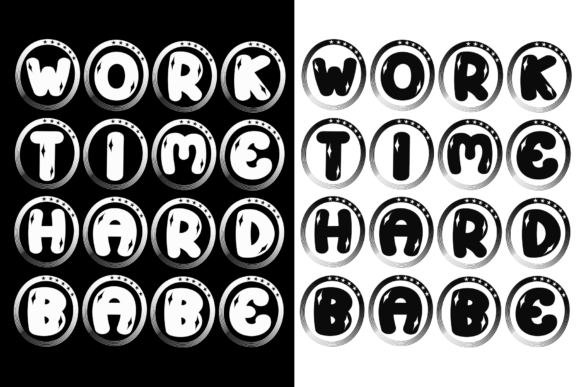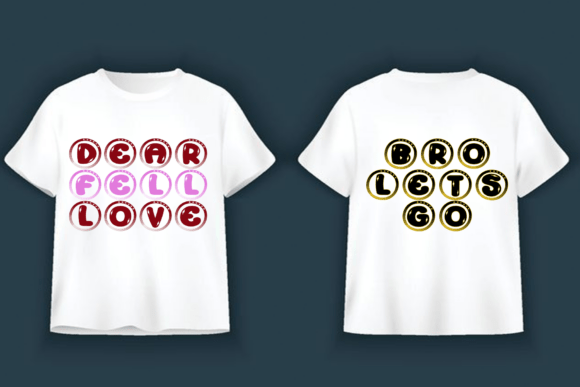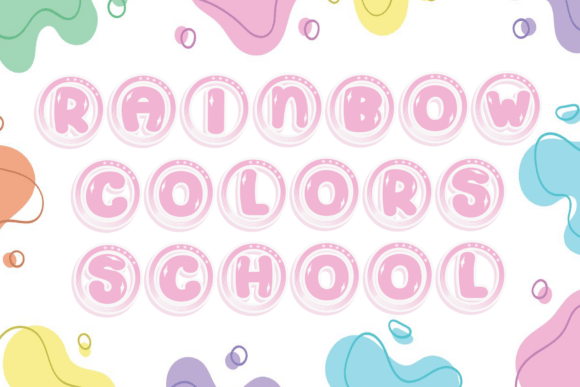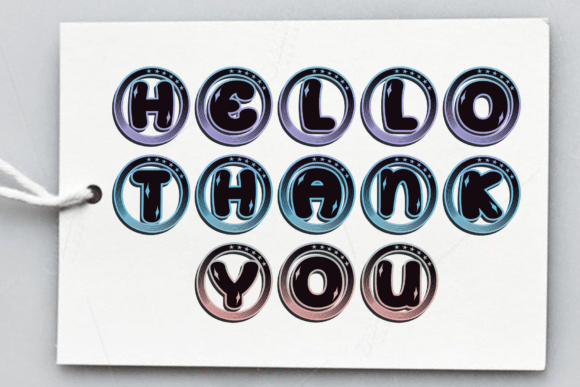
Unleashing Imagination with the Kids Color Font
Do you remember the excitement of creating a colorful masterpiece as a child, with crayons and markers sprawled across your drawing table? The joy of bringing your imagination to life is a feeling we all cherish, and for designers working with kids, it’s a vital part of their job.
That’s where the Kids Color Font comes in – a vibrant display font designed to bring fun and excitement to children’s projects. With its chunky, hand-drawn charm and playful spirit, this font is the perfect way to captivate young audiences and add joyful flair to any design. Whether you’re creating games, party invites, or learning materials, the Kids Color Font is a valuable asset in your design toolkit.
Kids Color Font Key Features
- Font Family: The Kids Color Font includes a unique set of colorful fonts designed specifically for children, with multiple styles and weights.
- Resolution: Designed to be resolution-independent, the Kids Color Font looks great at various resolutions, including low-resolution devices and high-resolution displays.
- Unique Characteristics: Each font character includes a set of colorful variations, allowing users to easily switch between different colors and create visually engaging content.
- Color Palette: The font includes a wide range of bright and vibrant colors, making it perfect for creating fun and engaging content for children.
Designer Review: Kids Color Font
Overall, I think Kids Color Font has some great qualities that make it a fun and playful choice for certain projects. ✨ The font’s vibrant colors and whimsical feel make it perfect for kids’ content, such as children’s books, educational materials, or even websites targeting young audiences.
- ✨ Easy to read: Despite the colorful design, the font is still relatively easy to read, especially for short texts or headlines.
- ✨ Versatile: The font comes in a range of colors, which makes it easy to match with other design elements and create a cohesive look.
- ✨ Fun: Let’s be honest, Kids Color Font is just plain fun to use! It adds a touch of playfulness to any project.
However, I do have a few concerns ⚠️:
- ⚠️ Limited flexibility: The font’s design is quite rigid, which can make it difficult to customize or pair with other fonts.
- ⚠️ Color overload: With so many colors available, it can be overwhelming to choose the right one for your project. This might lead to a messy or inconsistent look if not used carefully.
Overall, I think Kids Color Font is a great choice for projects that require a playful, child-friendly vibe. Just be mindful of its limitations and use it thoughtfully to avoid overwhelming your audience.
Practical Application Guide for Kids Color Font
Tips for Getting the Most Out of Kids Color Font
Experiment with different font sizes and colors to create a visually appealing effect. You can also combine the Kids Color Font with other fonts to create a unique design.
Common Use Cases for Kids Color Font
The Kids Color Font is ideal for creating playful and engaging designs for children’s products, educational materials, and family events. It can also be used for branding and marketing materials where a fun and youthful tone is desired.